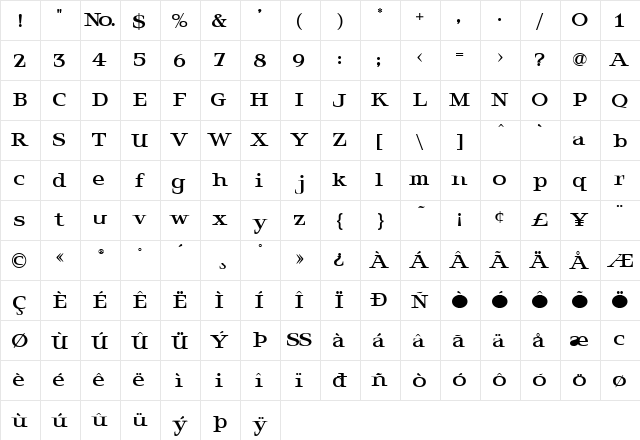
LHF Farango Regular
Design Context for LHF Farango Typeface
LHF Farango offers clean, dependable letterforms without strong stylistic allegiance, making it a practical choice for designers who need flexibility.
Pro Tip: Use LHF Farango in both headline and body roles to test its range before committing to a single application.